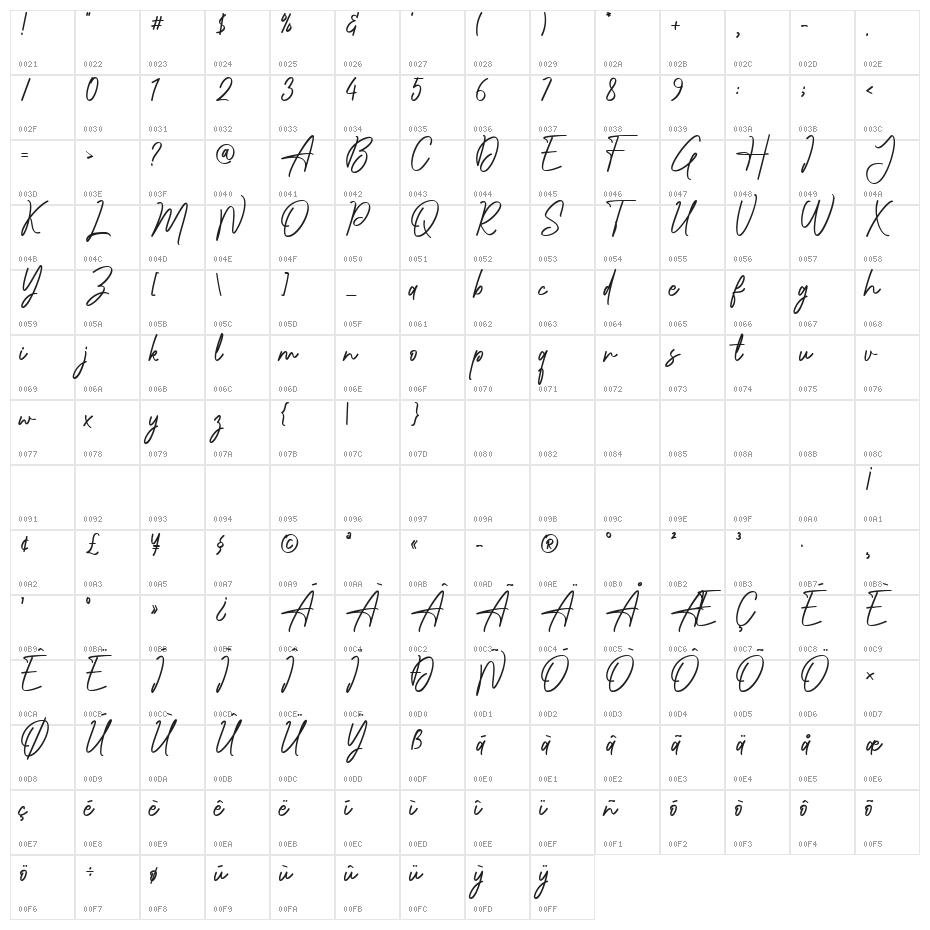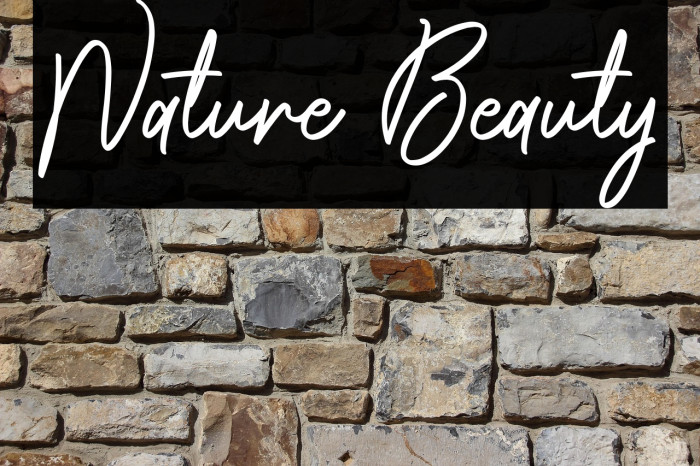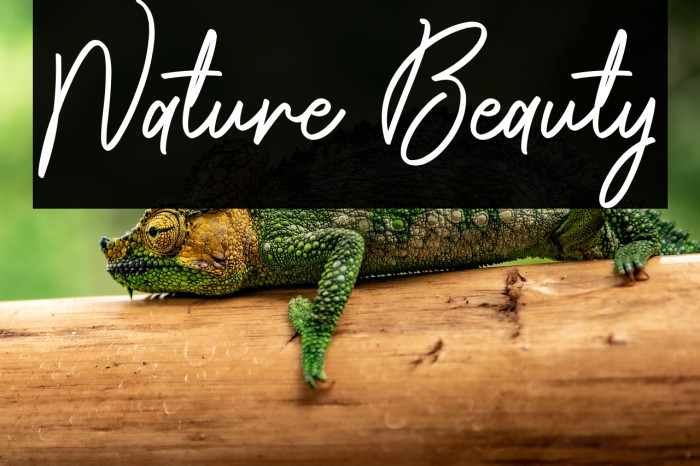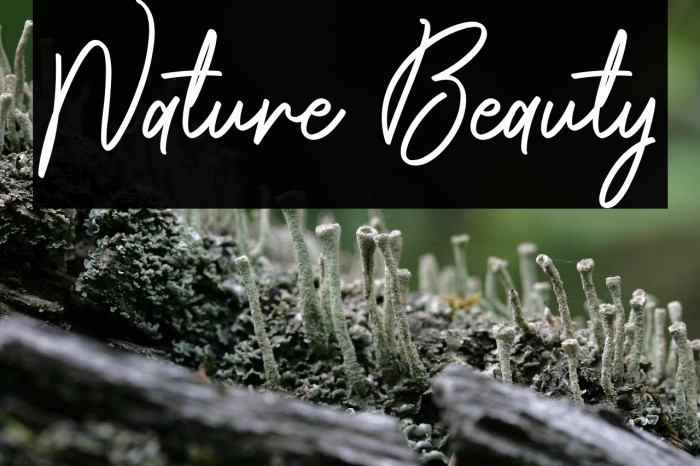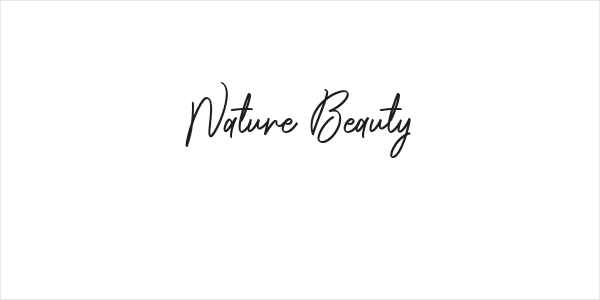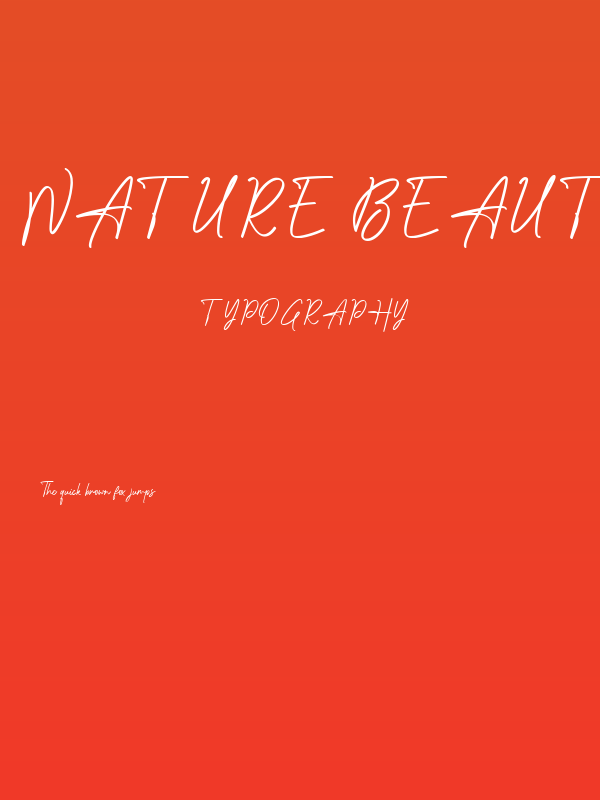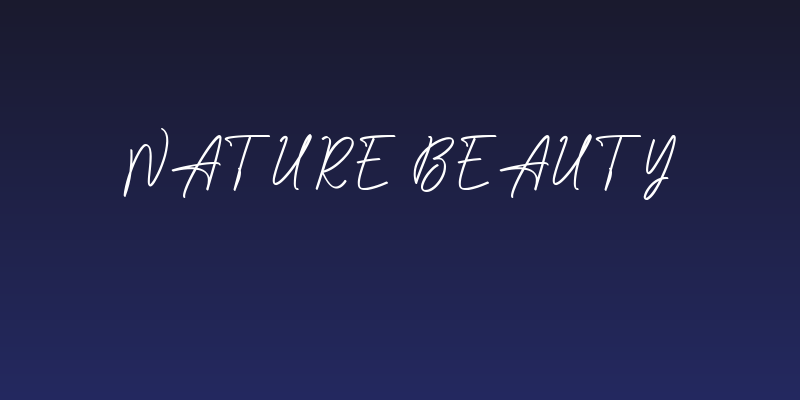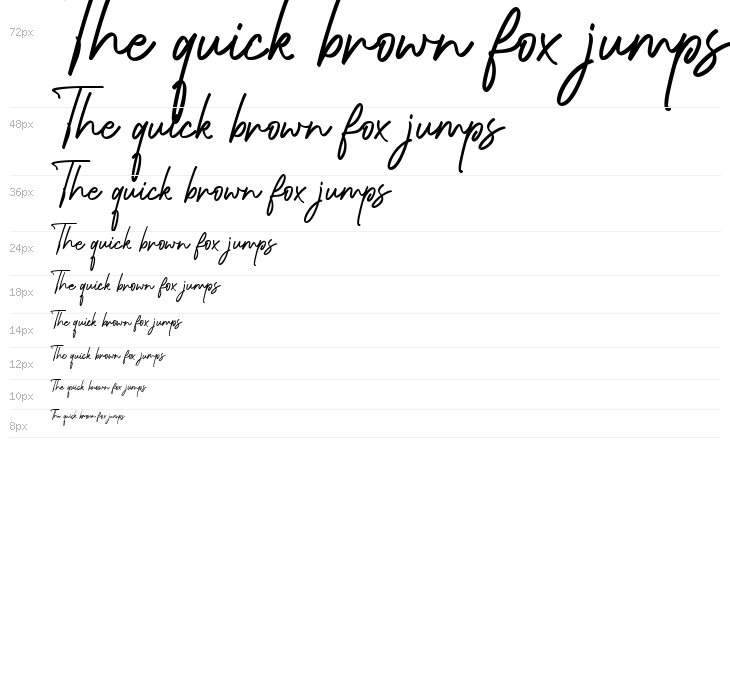
Nature Beauty Font
Nature Beauty Description
This font exudes a natural and elegant handwritten style, characterized by fluid and graceful strokes. The uppercase letters are slightly elongated with a gentle slant, giving a sense of movement and flow. The lowercase letters maintain a consistent style, with smooth curves and a casual yet refined appearance. The numerals are clear and legible, matching the overall aesthetic of the font. Special characters are thoughtfully designed to complement the letterforms, enhancing the font's versatility. The overall look is both sophisticated and approachable, making it suitable for a variety of creative projects.
| Overall Style | Elegant, Natural |
| Proposed Projects | Ideal for wedding invitations, greeting cards, personal branding, and elegant packaging designs. |